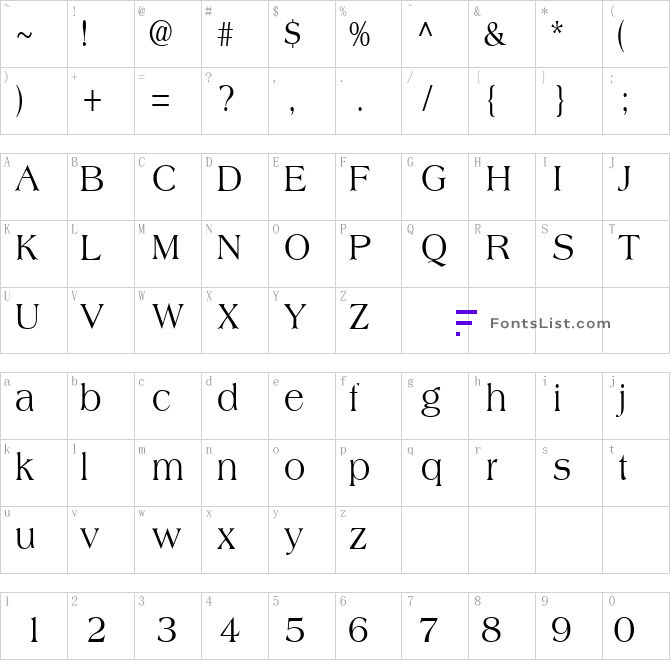
- Font Name:AmalcanCond
AmalcanCond.ttf is a very beautiful artistic font, AmalcanCond.ttf is widely used in the design and printing of various books and pictures,AmalcanCond.ttf has a strong visual impact,AmalcanCond.ttf is a commonly used font in newspapers, magazines and books, and is used in posters, e-commerce Poster design, store design, logo design, font design and other fields.AmalcanCond.